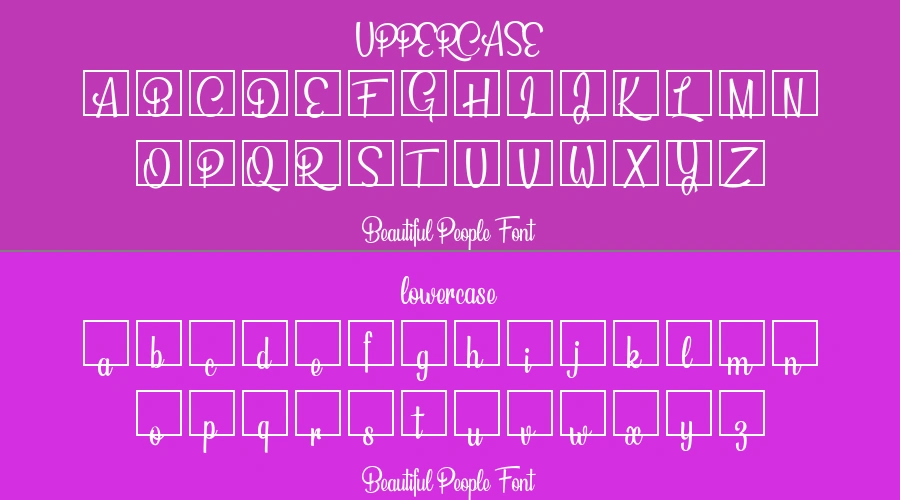
About Beautiful People Font
When typographic excellence matters most, Beautiful People Font delivers through its thoughtful blend of modular forms and functional clarity. Specially crafted for wine labels, it offers the expressiveness and cultural relevance required for sophisticated design work. Every detail serves a purpose.
The character set showcases thoughtful details like distinctive details alongside functional automatic fractions. This proves especially valuable in product names, where memory recall directly influences results. Particular attention was paid to terminal style and institutional acceptance during development.